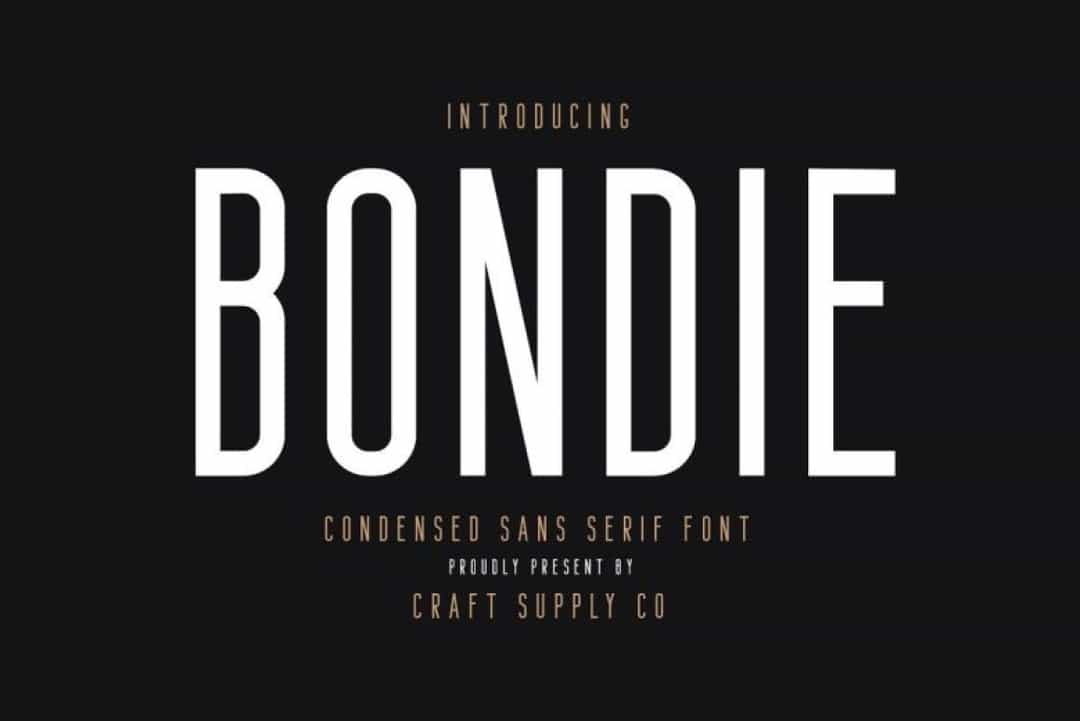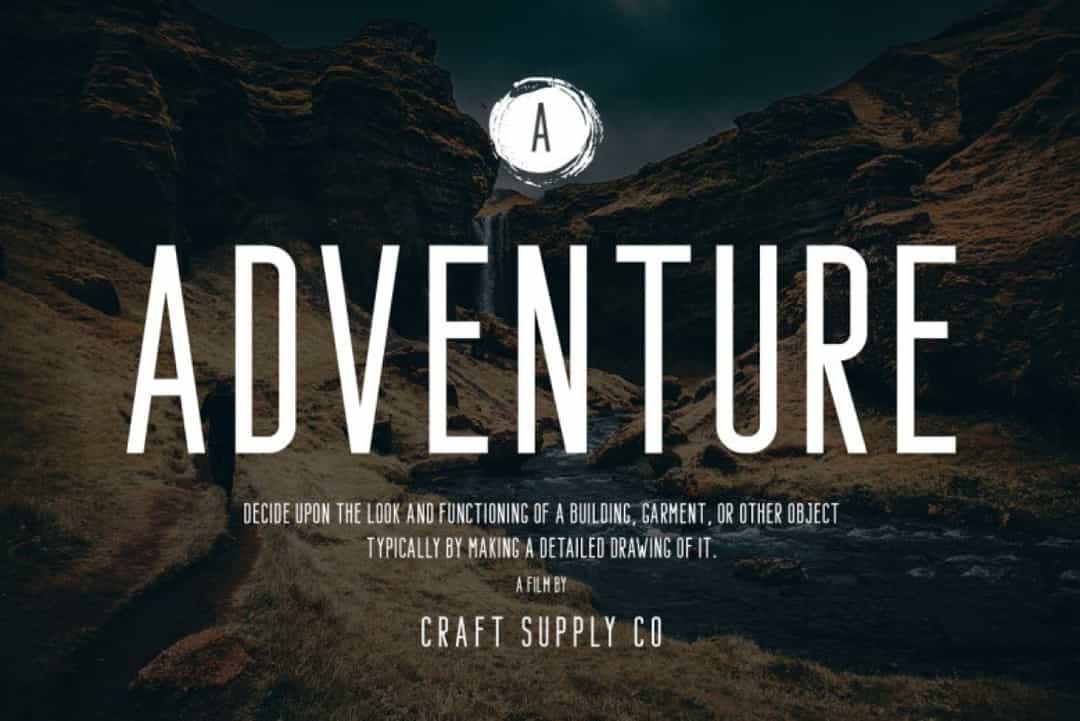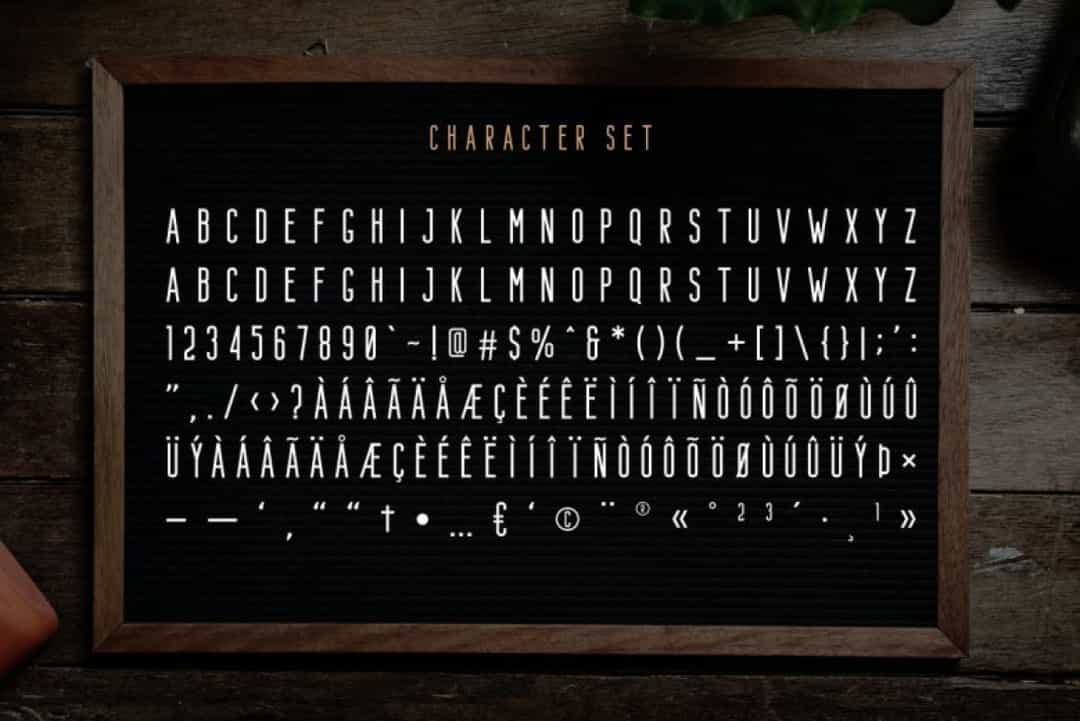
Bondie – A Classy Condensed sans serif font due to its solid font files. The font itself is a compact solid font styled in various approaches. Best for Logo, greeting cards, quotes, posters, branding, name card, stationary, design title, blog header, art quote, typography